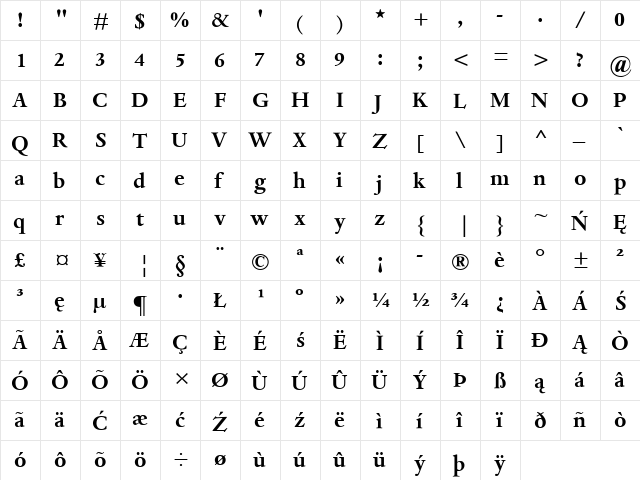
Dante Bold
Design Context for Dante Typeface
Dante offers clean, dependable letterforms without strong stylistic allegiance, making it a practical choice for designers who need flexibility. Its bold stroke weight gives it real presence on the page.
Pro Tip: Pair Dante with a font of contrasting weight or personality to build a more expressive typographic hierarchy.